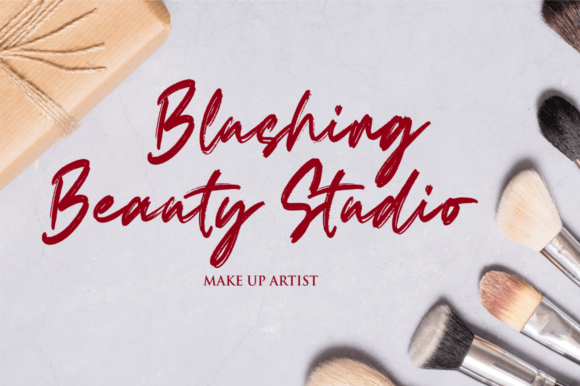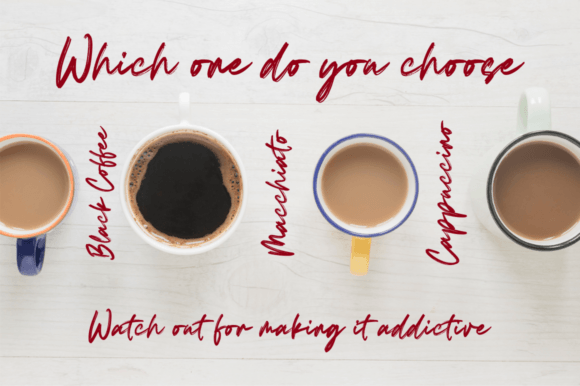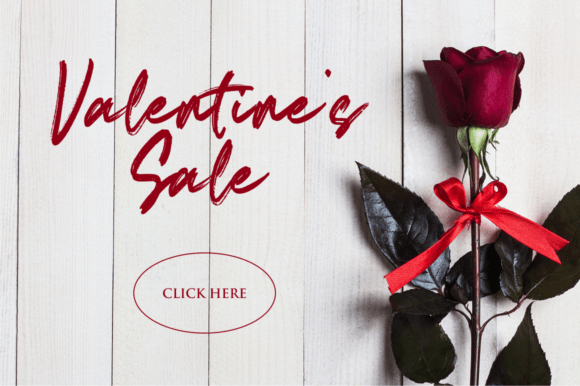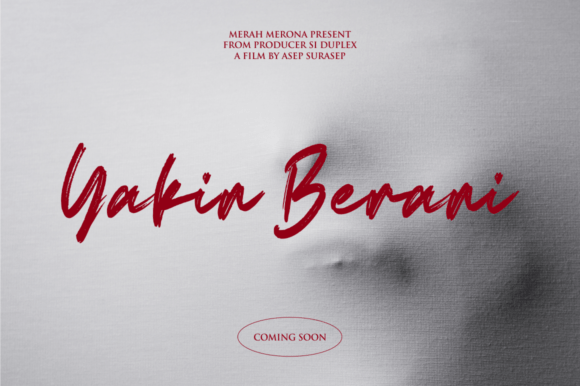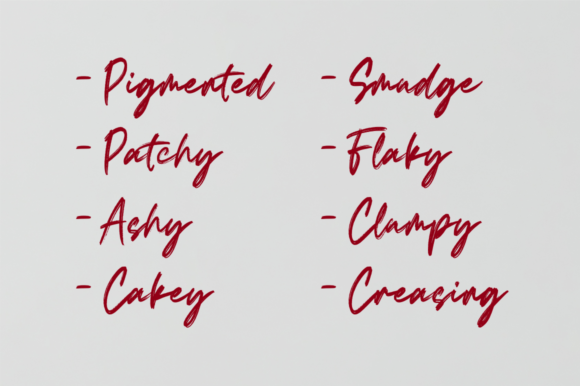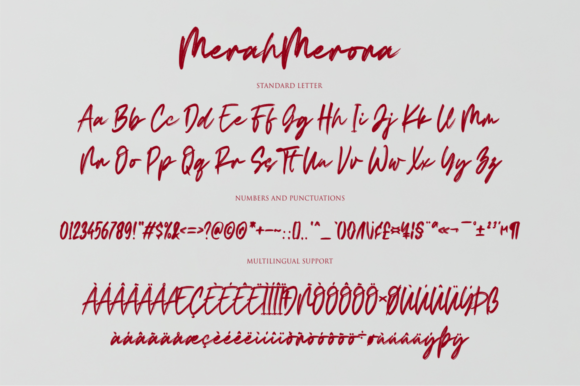
Introduction to Merah Merona Font
Merah Merona is a unique and elegant handwritten font.
It looks beautiful on a variety of designs requiring a personalized style, such as wedding invitations, thank you cards, weddings, greeting cards, logos and so on .
Key Features of Merah Merona Font
Merah Merona Font offers exceptional quality and versatility, making it a valuable addition to your design toolkit. Whether you’re creating for personal projects or commercial use, Merah Merona Font delivers professional results.